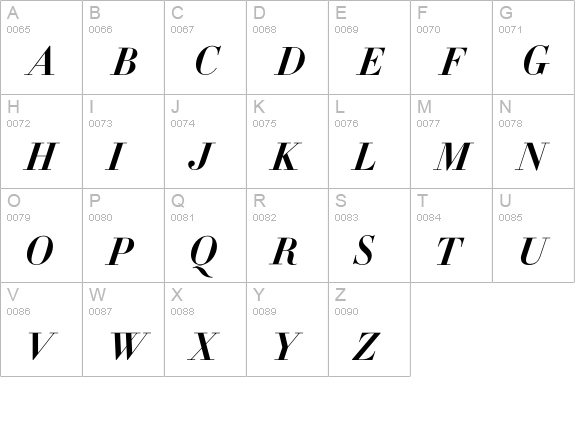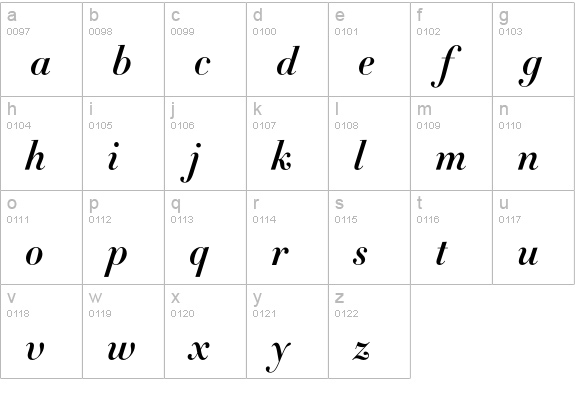
Didot-HTF-B16-Bold-Ital is a strong, high-contrast variant in the Didot typeface family \xE2\x80\x94 well suited to headlines, attention-grabbing titles, and strong calls-to-action.
Didot-HTF-B16-Bold-Ital is a sophisticated and elegant font that exudes confidence and modernity. Its bold and italic design adds a touch of flair and style to any project, making it perfect for headlines, titles, and other attention-grabbing text. The sharp serifs and clean lines give this font a timeless appeal, making it versatile for both print and digital designs. This font is available for free download at FontsMarket.com, where you can easily access this premium typeface for your creative projects. Whether you're designing a poster, logo, website, or any other visual content, Didot-HTF-B16-Bold-Ital will elevate your typography and make a lasting impression. Get your hands on this elegant font today and enhance your design aesthetic with its bold and italic beauty.